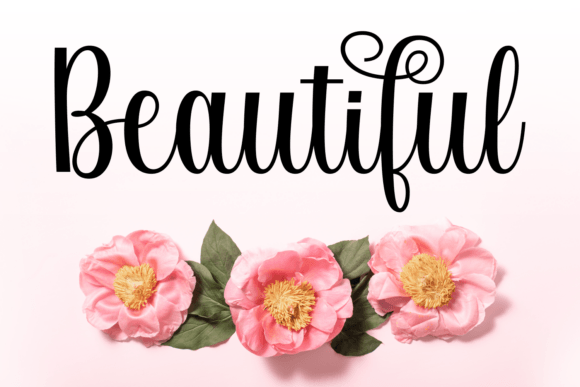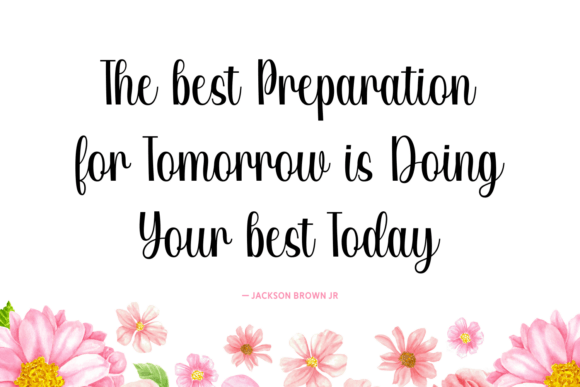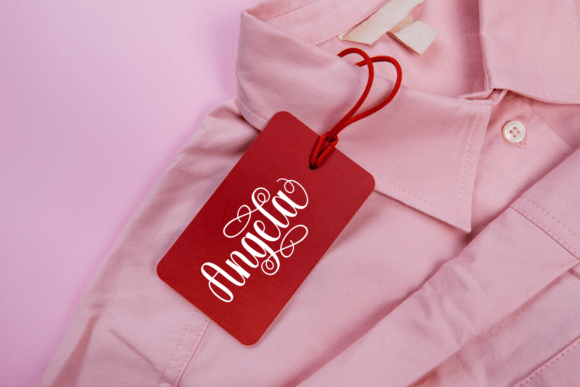
Introduction to Mamilia Font Font
Fonts play a crucial role in design, and the Mamilia Font font is a typeface that brings both character and versatility to any project. Whether you’re working on a branding project, a website, or a print design, the Mamilia Font font offers a unique style that can elevate your work.
Mamilia is a lovely, elegant script font that features graceful curves and flowing letters.
It has a sophisticated look, making it perfect for invitations, greeting cards, and any design that needs a touch of beauty and charm Its smooth style adds a personal, artistic feel to any project.
Key Features of Mamilia Font Font
Why Choose Mamilia Font Font?
The Mamilia Font font is more than just a typeface – it’s a design tool that helps you communicate your message with style and clarity. Its unique character set and versatile design make it suitable for a wide range of applications, from elegant invitations to bold headlines.
With its carefully crafted letterforms and balanced proportions, the Mamilia Font font ensures readability and visual appeal across all mediums.
What makes Mamilia Font font special?
The Mamilia Font font stands out with its unique design, exceptional readability, and versatility across various design applications.